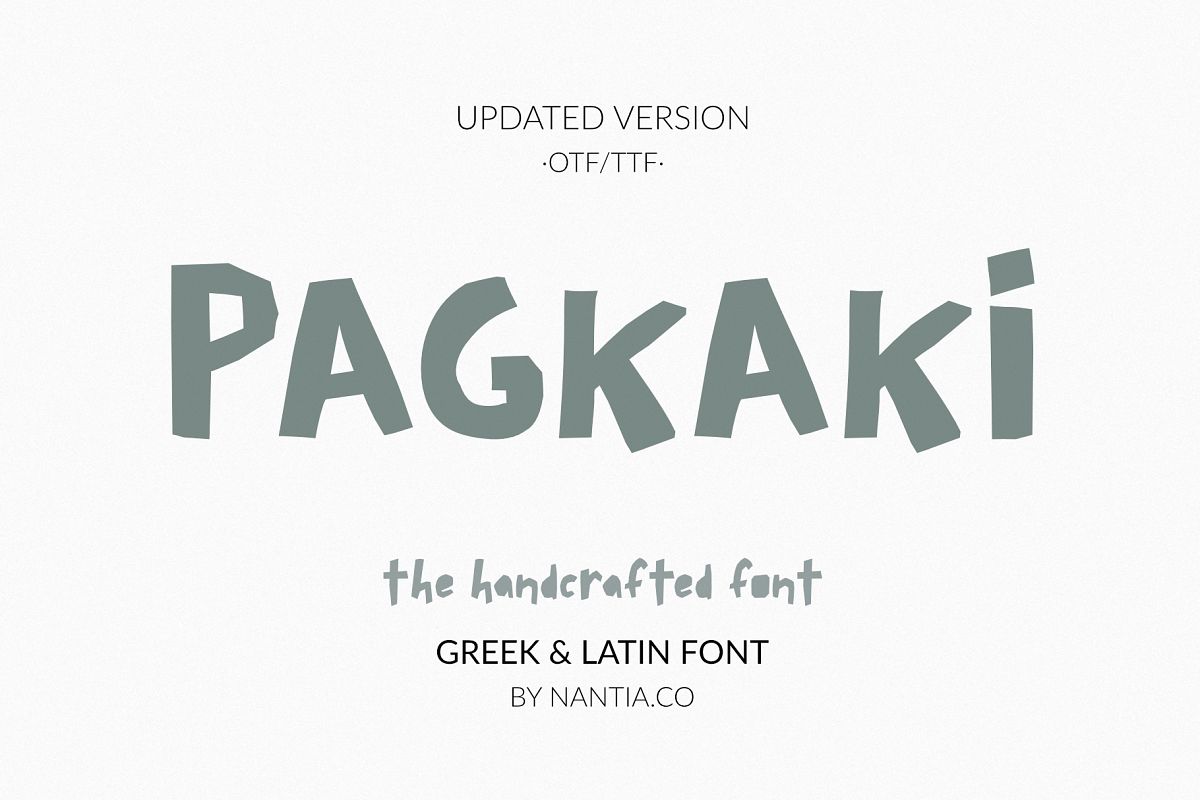
Let me introduce you to Pagkaki Greek Font
Pagkaki Font is a fun display font, with support for Extended Latin and Greek characters. Of course, with this typeface, you have access to a Greek set of characters. Pagkaki Handcrafted Greek Font is a multilingual font that can transform any project into a bold graphic design statement. This handmade font supports both uppercase and lowercase characters, and it is a powerful, bold handwritten font. This craft font looks perfect on baby shower invitations, but not too childish. Again, if you are loving crafts this is the scrapbooking font for you!
In addition, I have to mention the endless applications of this lettering font in food products, restaurant menus, hotels, and generally in the food and hospitality industries. This raw, fun font is perfect for natural organic product packaging and branding.
• Extended Latin character set,
• diacritics for multilingual support,
• Greek character set,
• punctuation marks and
• numbers